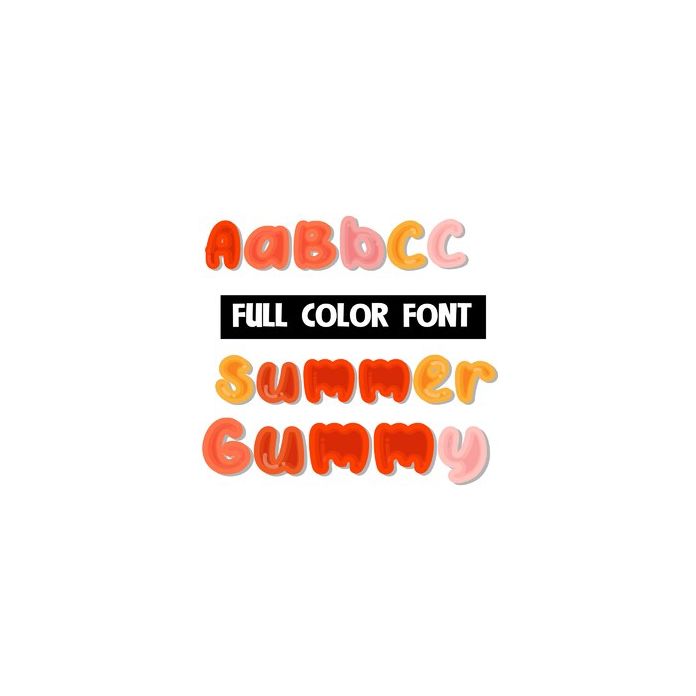
This full-color font looks like it was made out of colorful gummies in a summer color palette. This font works best for titles, displays, posters and more. Please note color fonts will show as black in non compatible programs. This font type is compatible with Silhouette Studio.